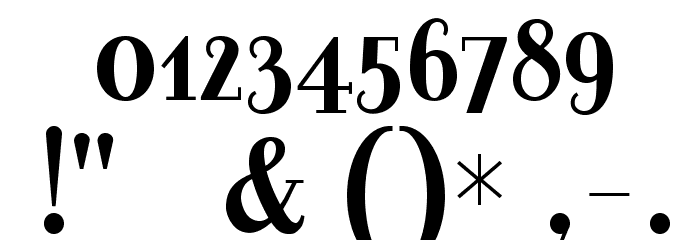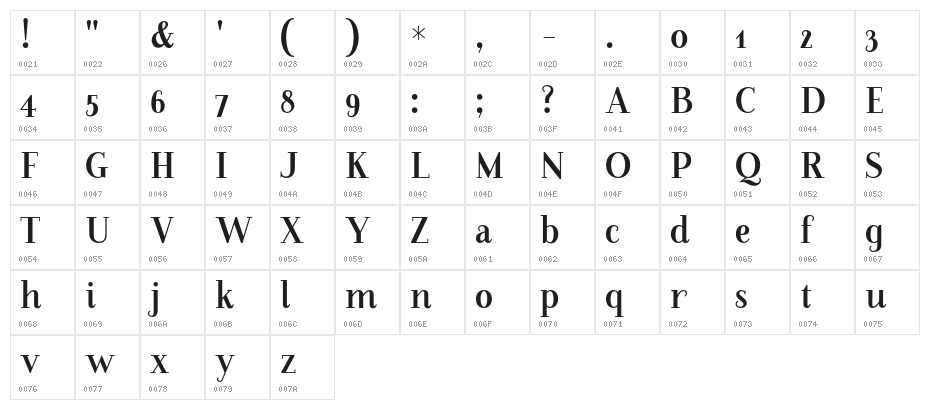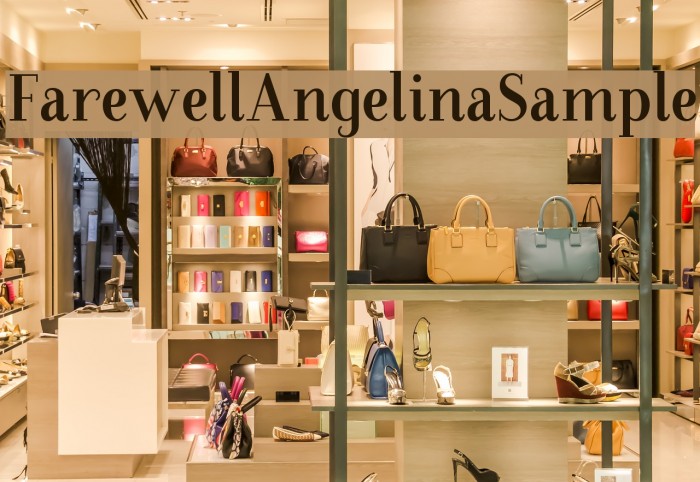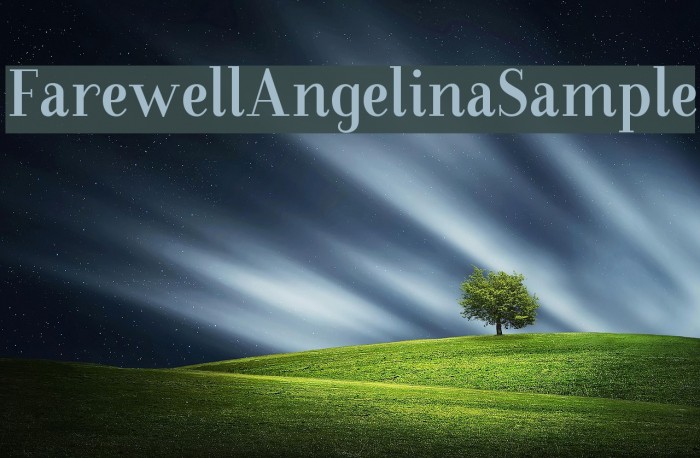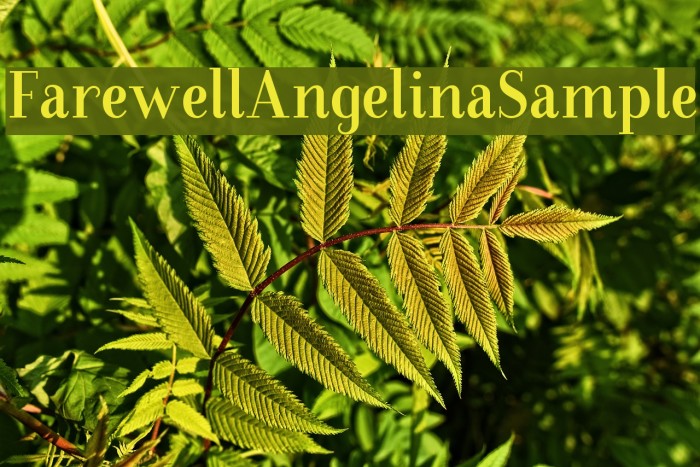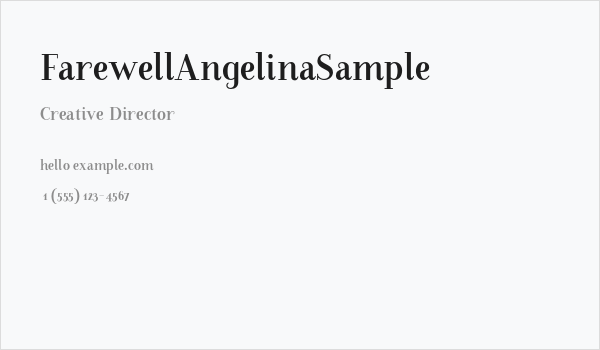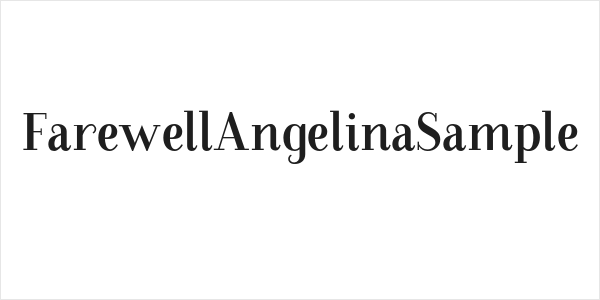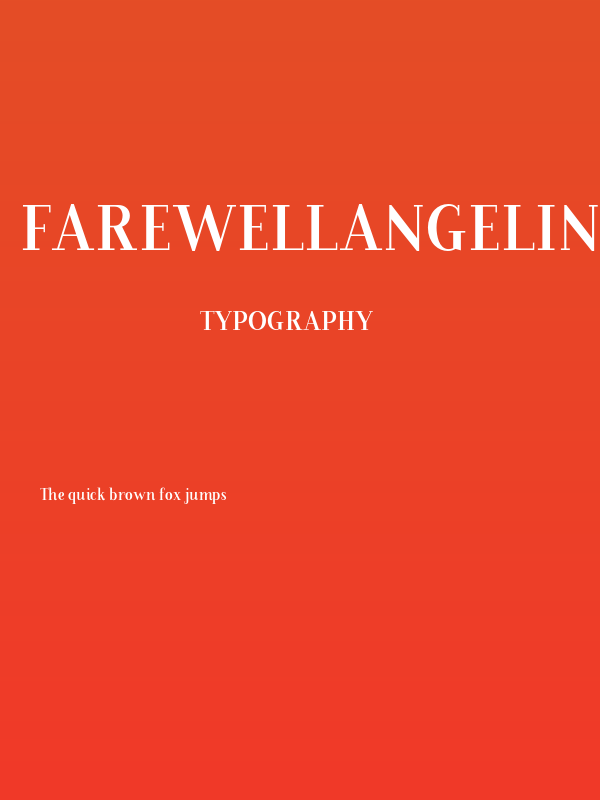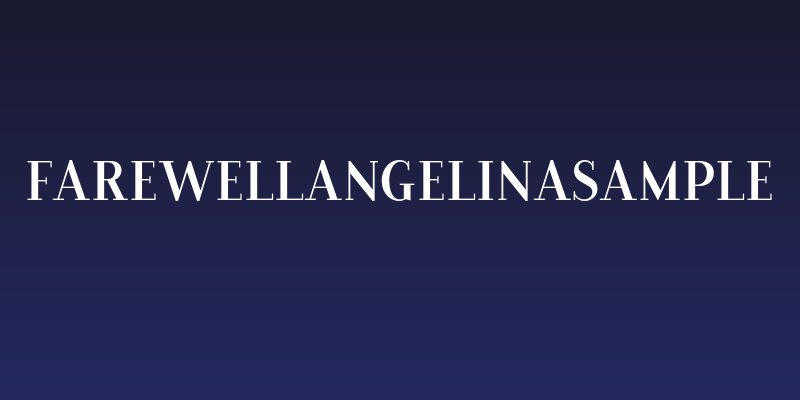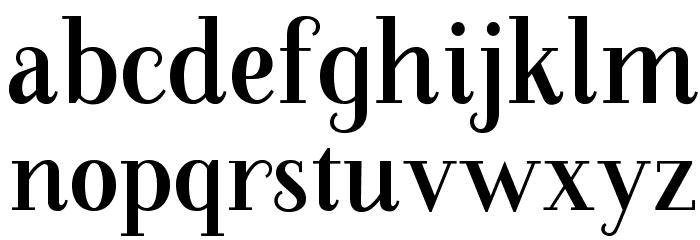
FarewellAngelinaSample Font
FarewellAngelinaSample Description
This font exhibits a classic serif style with elegant and refined strokes. The uppercase letters are bold and commanding, while the lowercase letters maintain a graceful and flowing appearance. The numerals are well-proportioned, complementing the overall aesthetic. Special characters are designed with a touch of sophistication, making them stand out without overpowering the text. The font's balance between thick and thin strokes provides a medium contrast, enhancing readability while maintaining a stylish look. Its timeless design makes it suitable for a variety of applications, from formal documents to creative projects.
| Proposed Projects | Ideal for book covers, formal invitations, branding, and editorial design. |